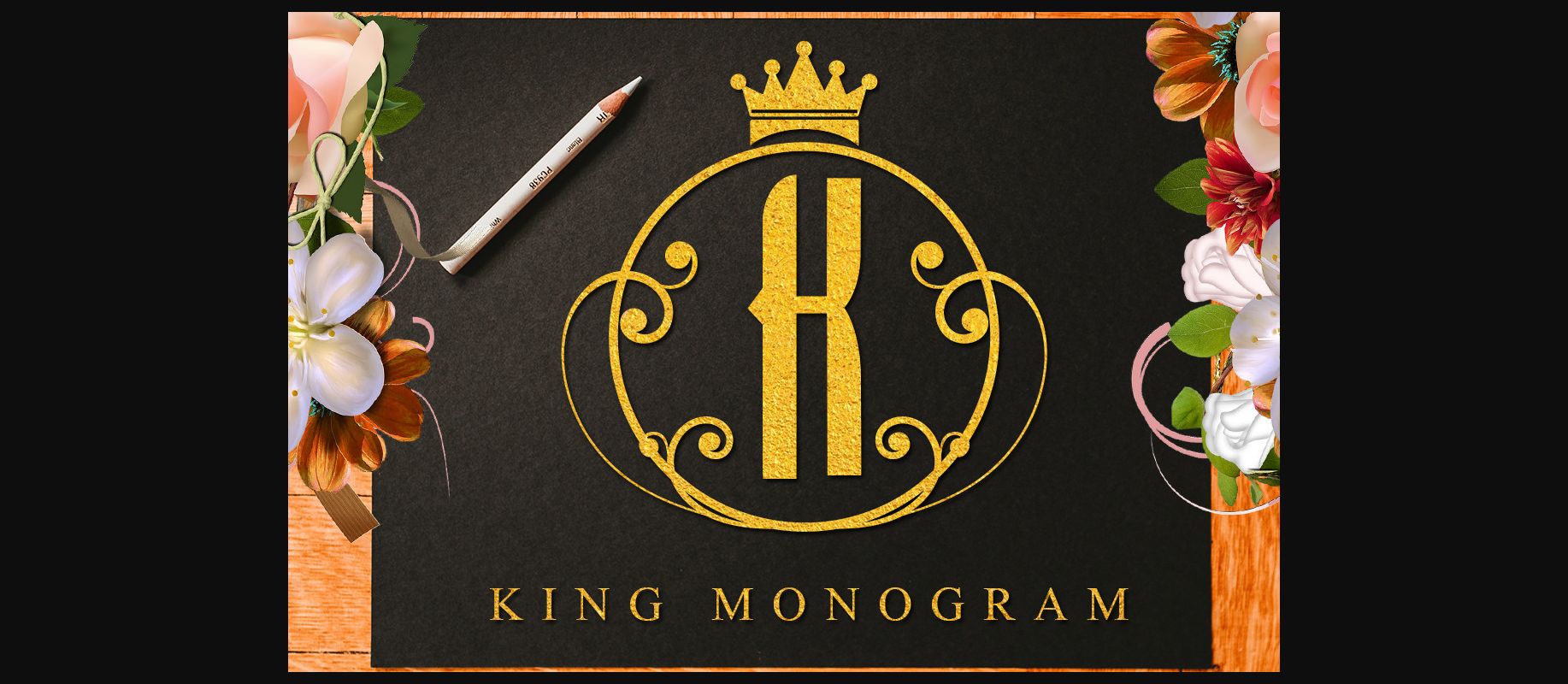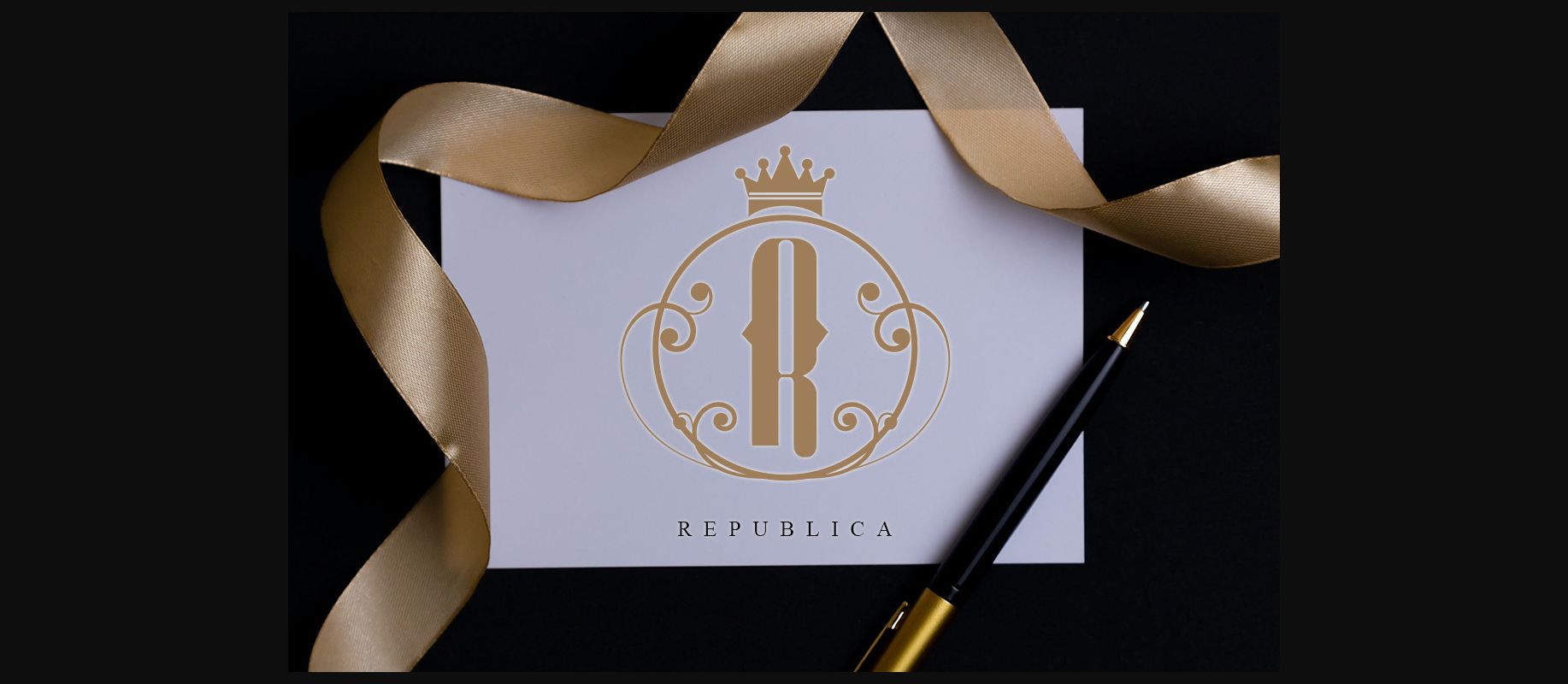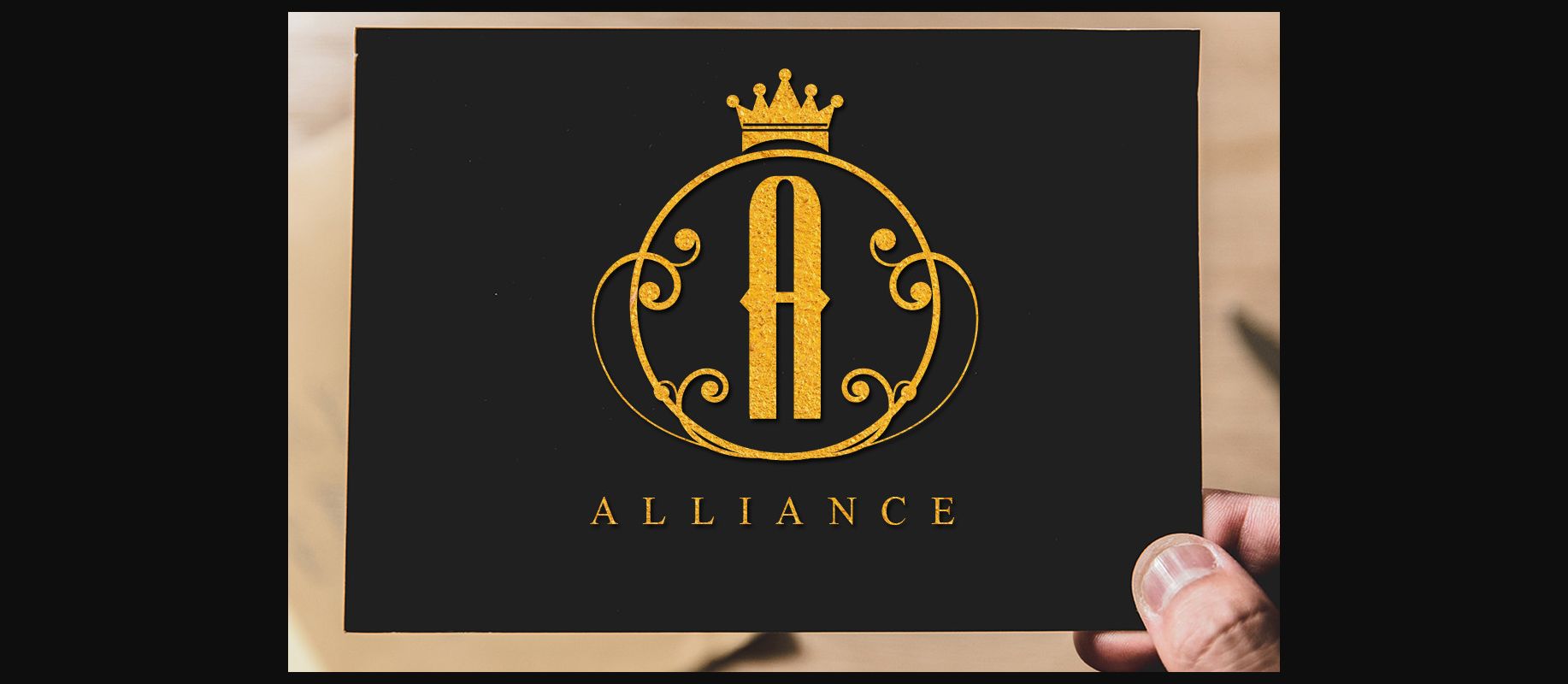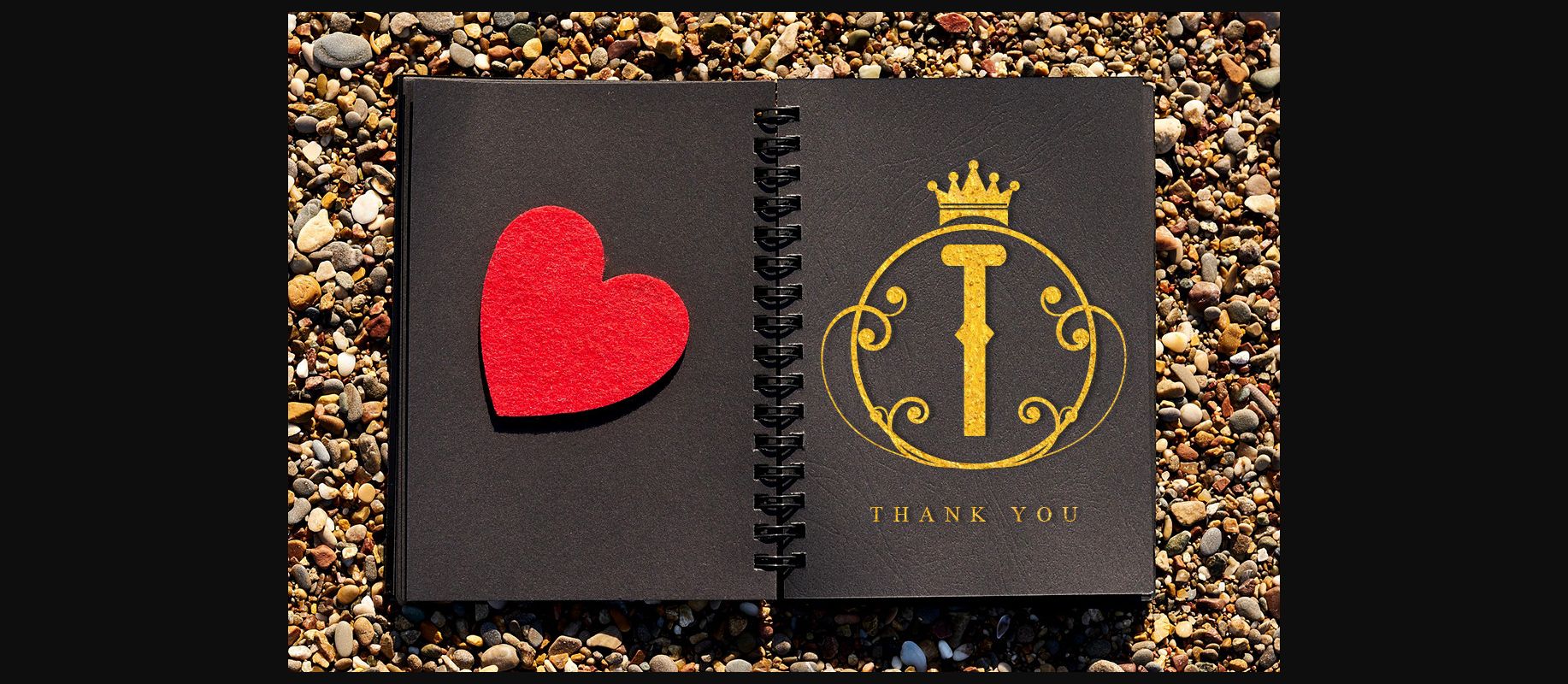
HomeDecorative FontsKing Monogram Font Decorative Fonts King Monogram Font FacebookXPinterestWhatsApp 1 of 6 ... King Monogram Font Poster 2... King Monogram Font Poster 3... King Monogram Font Poster 4... King Monogram Font Poster 5... King Monogram Font Poster 6... About King Monogram Font King Monogram is a cool, uniquely designed and cool decorative font. It maintains its classy calligraphic influences while feeling contemporary and fresh. Fall in love with it and bring your projects to the highest levels! DOWNLOAD NOW People also explored Harlyna Font Jacksonville Font Explore Changes Font Morava Font Disko Kids Font Cecilyon Font Signature Font Valeria Font Flowers Font 339 0 TagsKing Monogram Font Previous articleFlower Batique FontNext articlePlay Boxing Font LEAVE A REPLY Cancel reply Comment: Please enter your comment! Name:* Please enter your name here Email:* You have entered an incorrect email address! Please enter your email address here Website: Save my name, email, and website in this browser for the next time I comment. Personal Use Free Coconote Personal Use Free Read more about this font Aliqa Personal Use Free Read more about this font Black Personal Use Free Read more about this font Letter Hanger Personal Use Free Read more about this font BLOG How to Cut Any Font on Cricut: Convert a Font to SVG (Free) Turn any font into a clean SVG so it cuts crisp on Cricut - a quick 3-step workflow using a free font-to-SVG tool. Free Fonts Risk: Why Free Fonts Can Be Dangerous for Designers Exploring Font Trends The 10 Best Handwriting Fonts to Add Personality to Your Designs